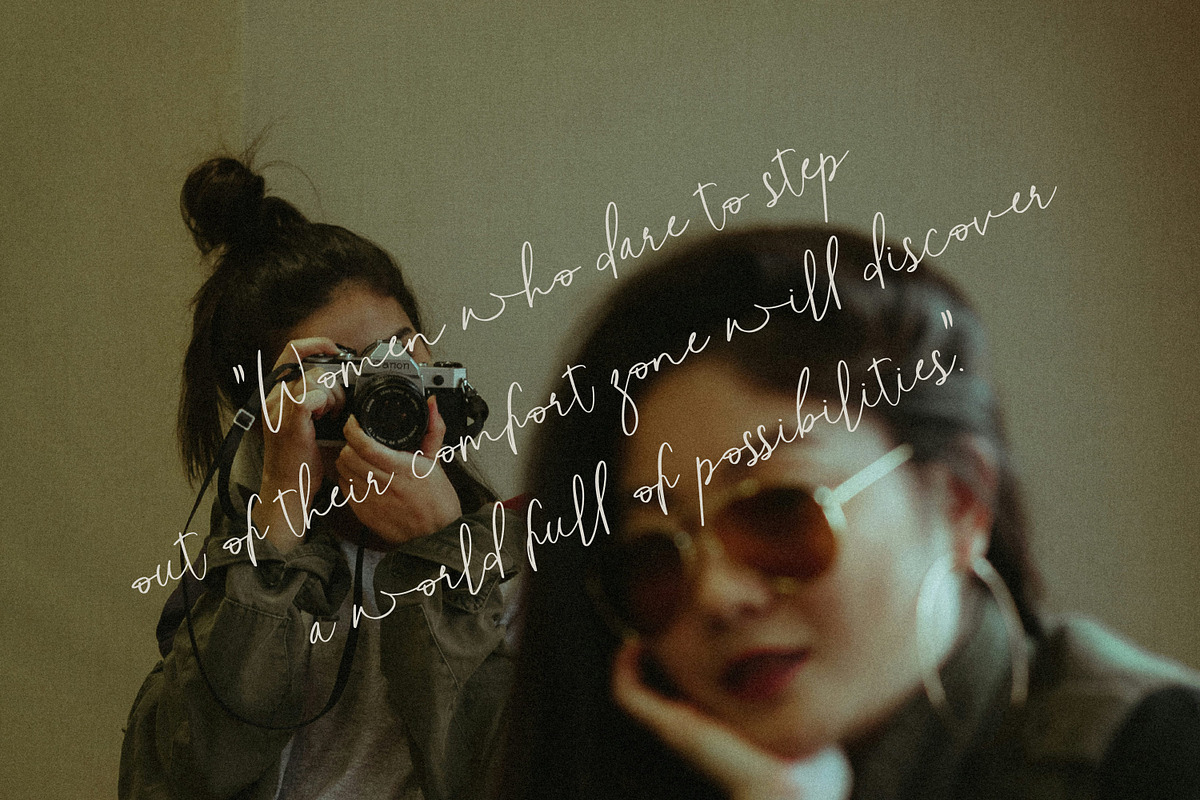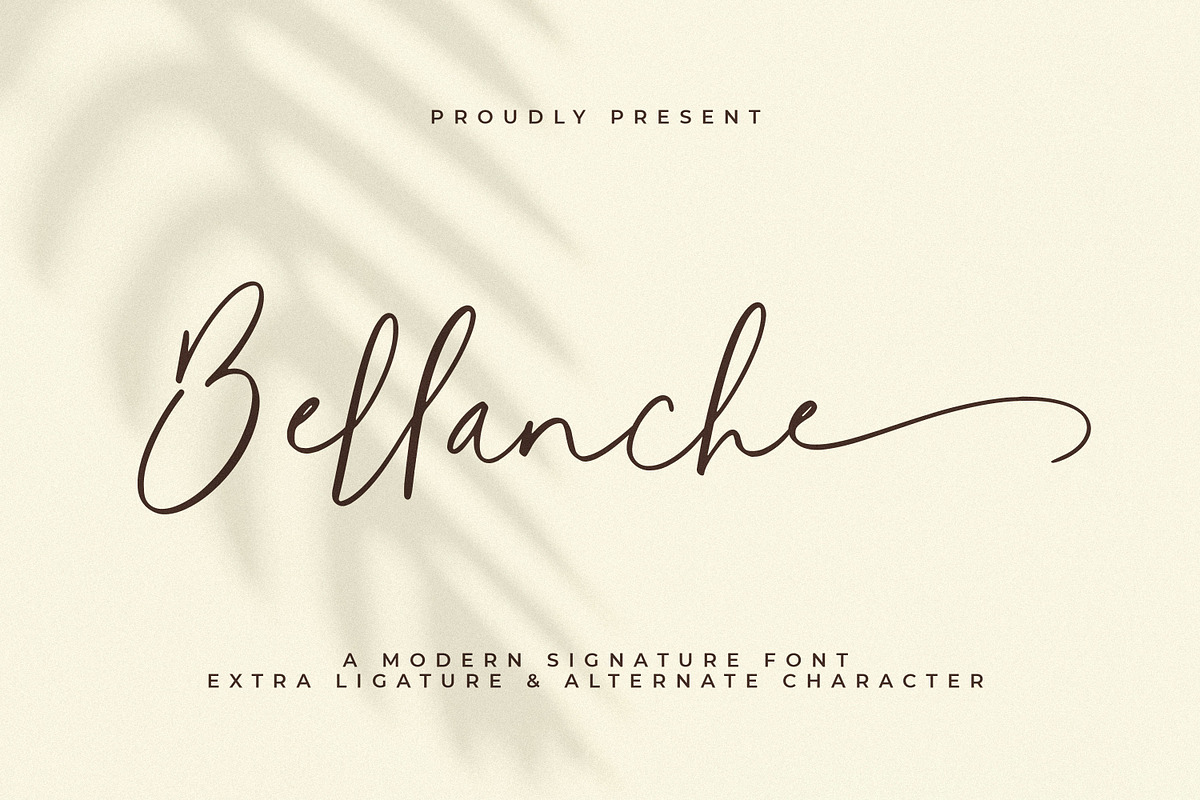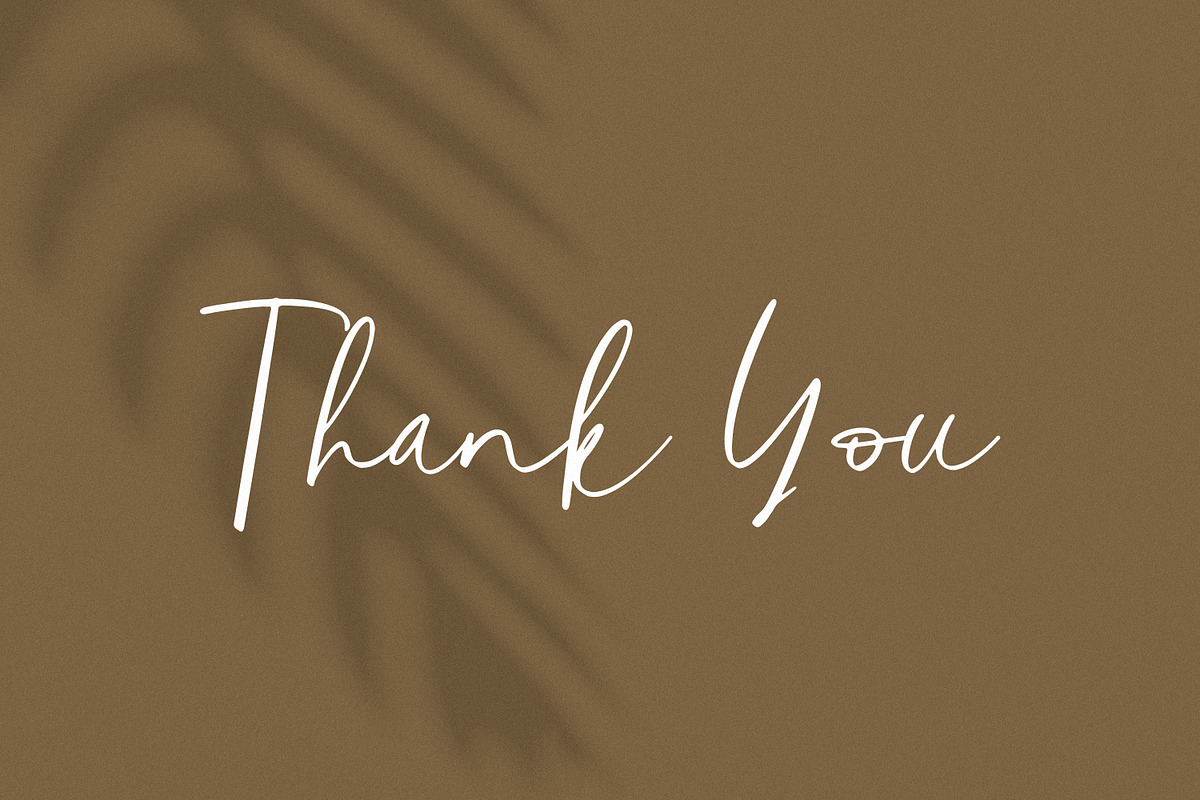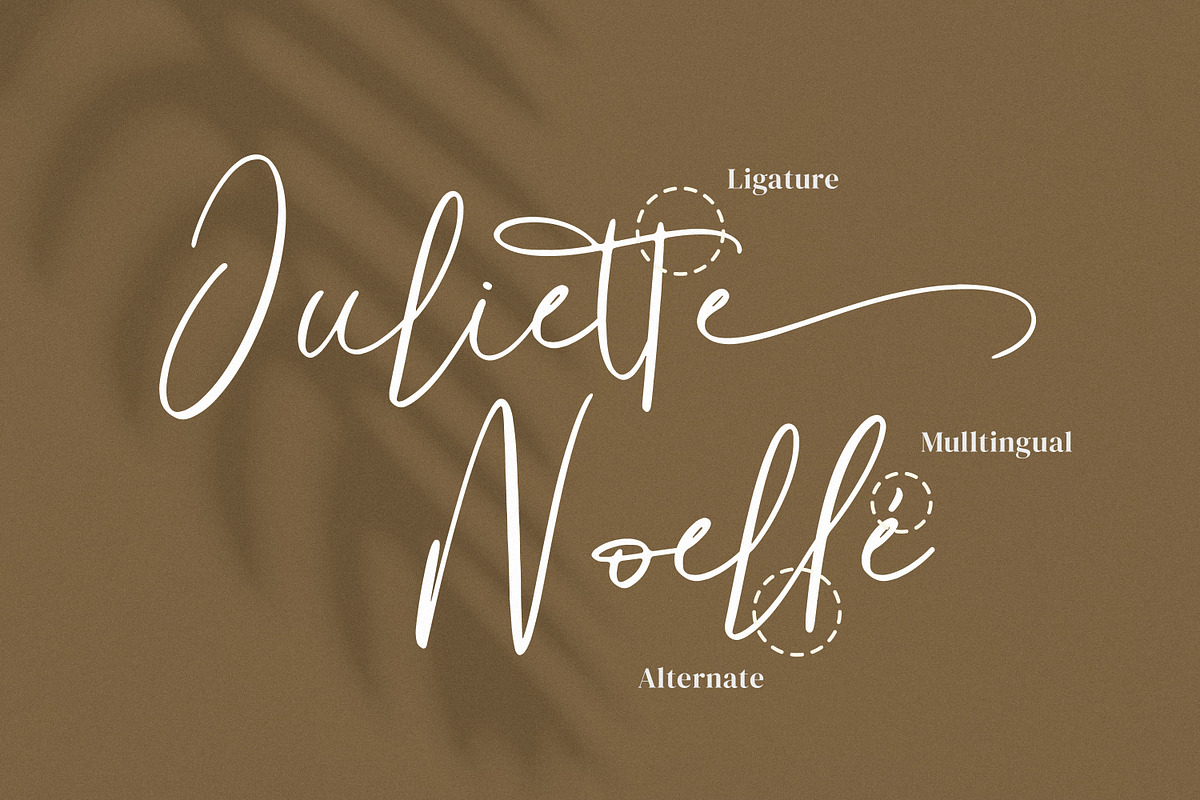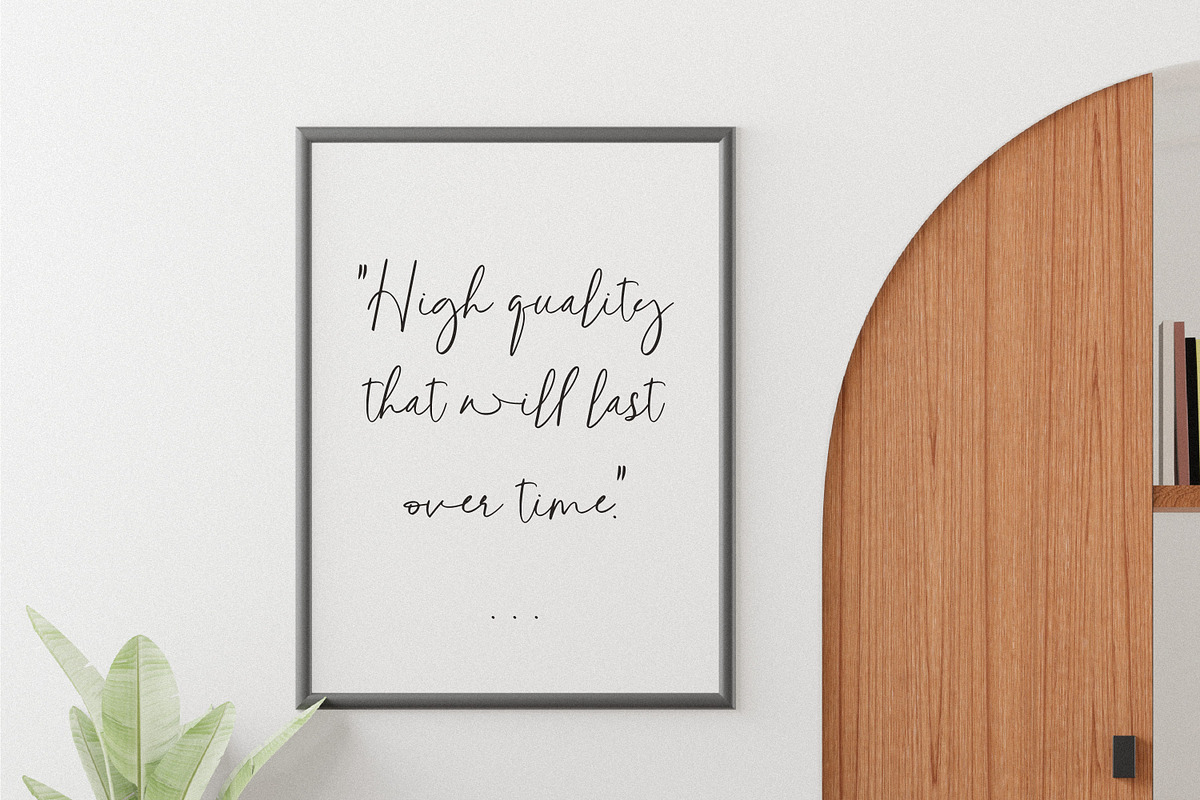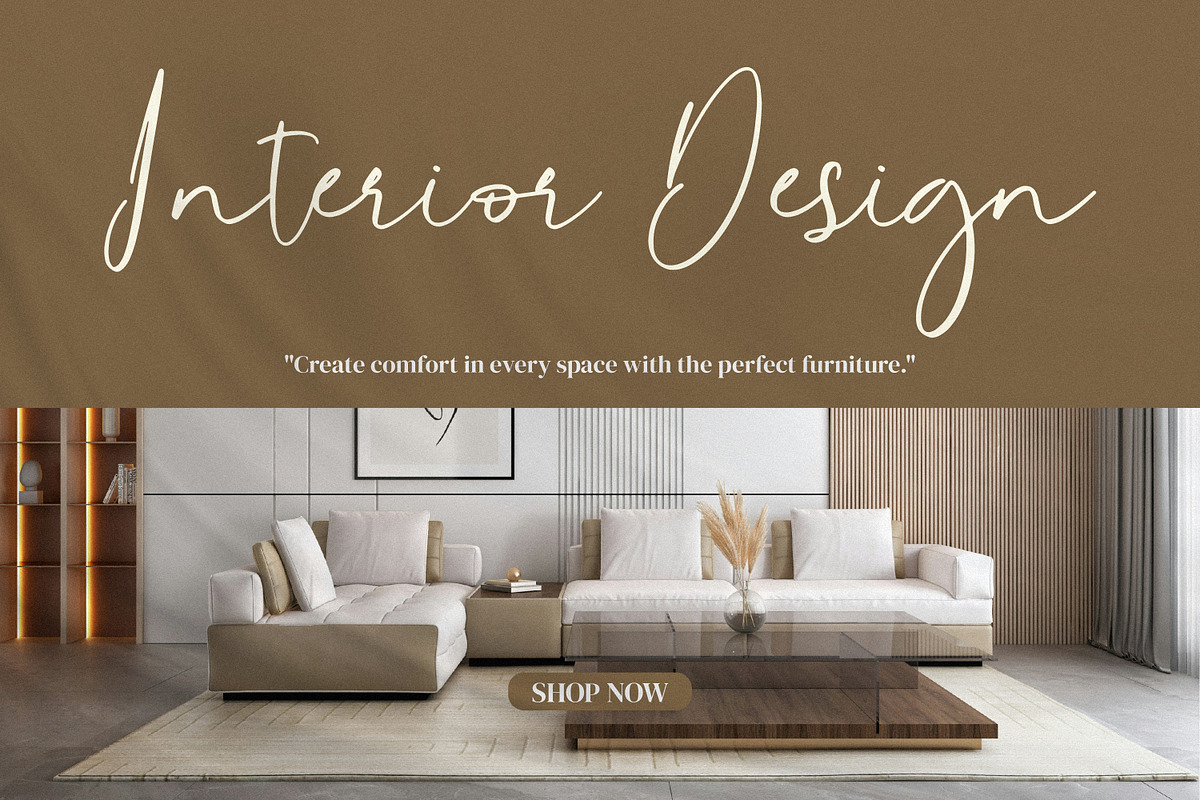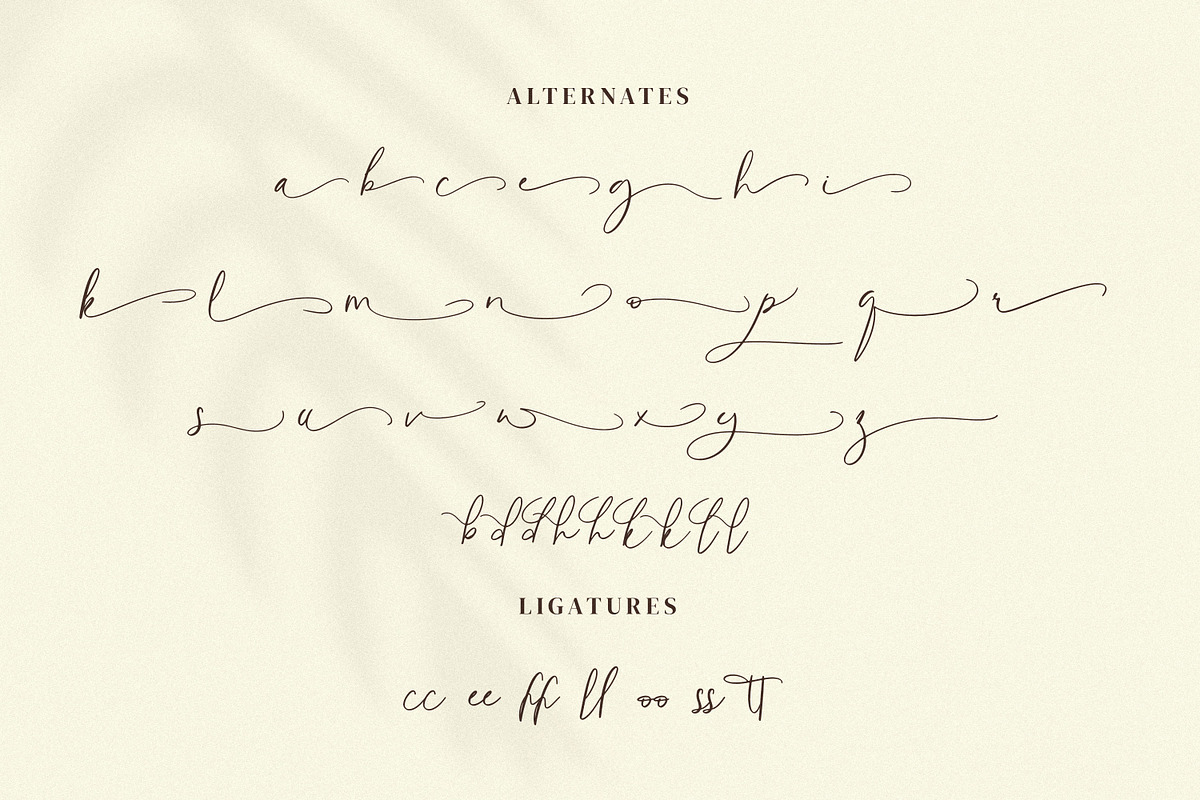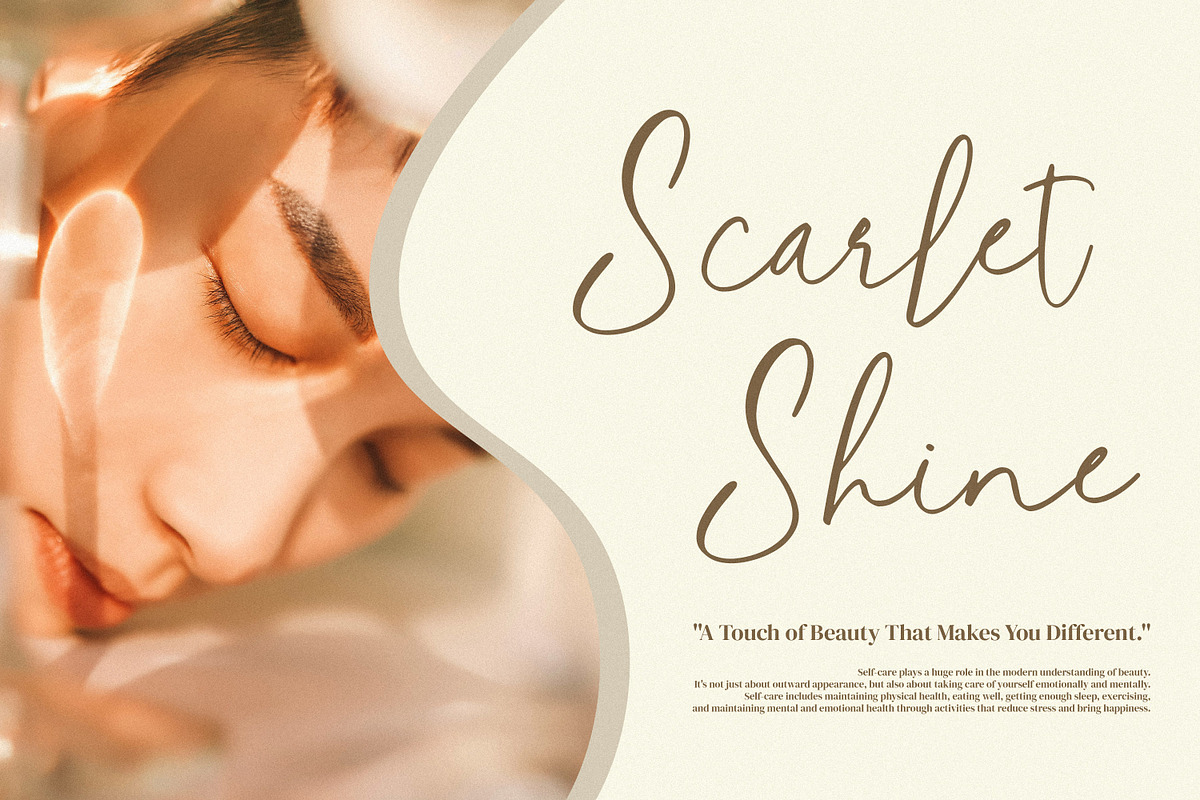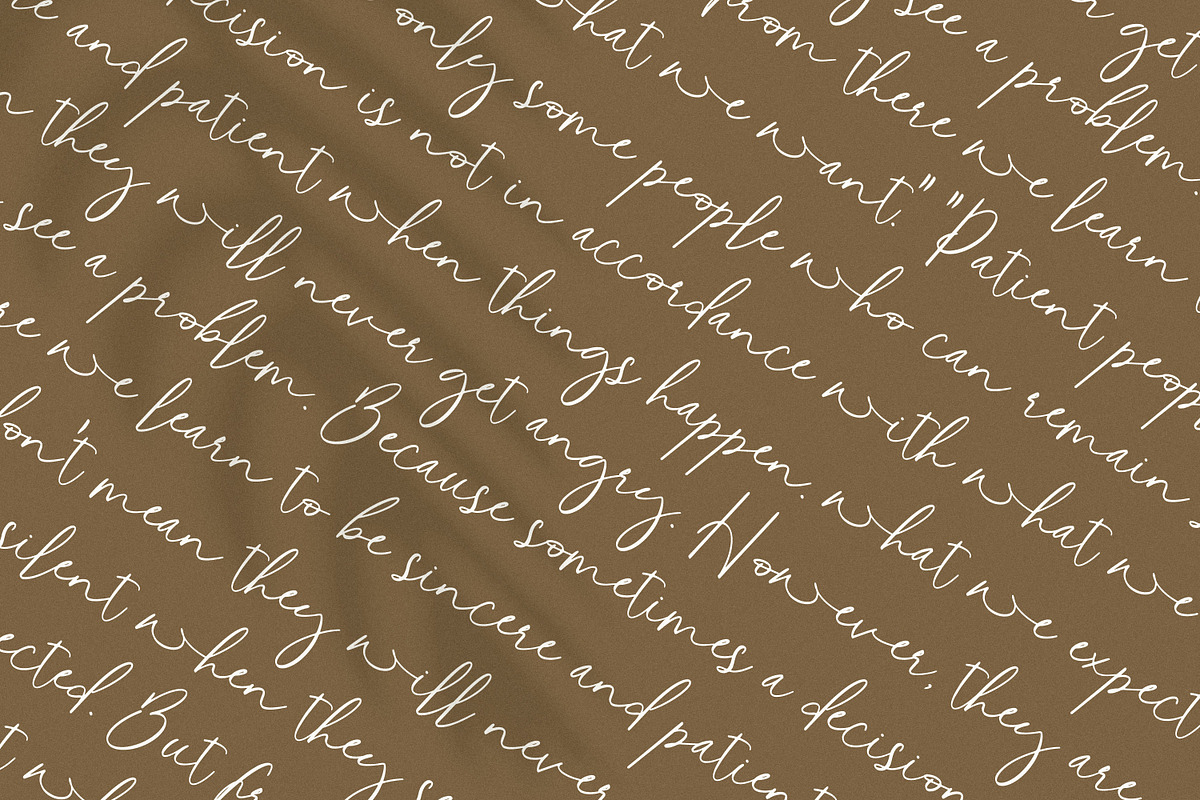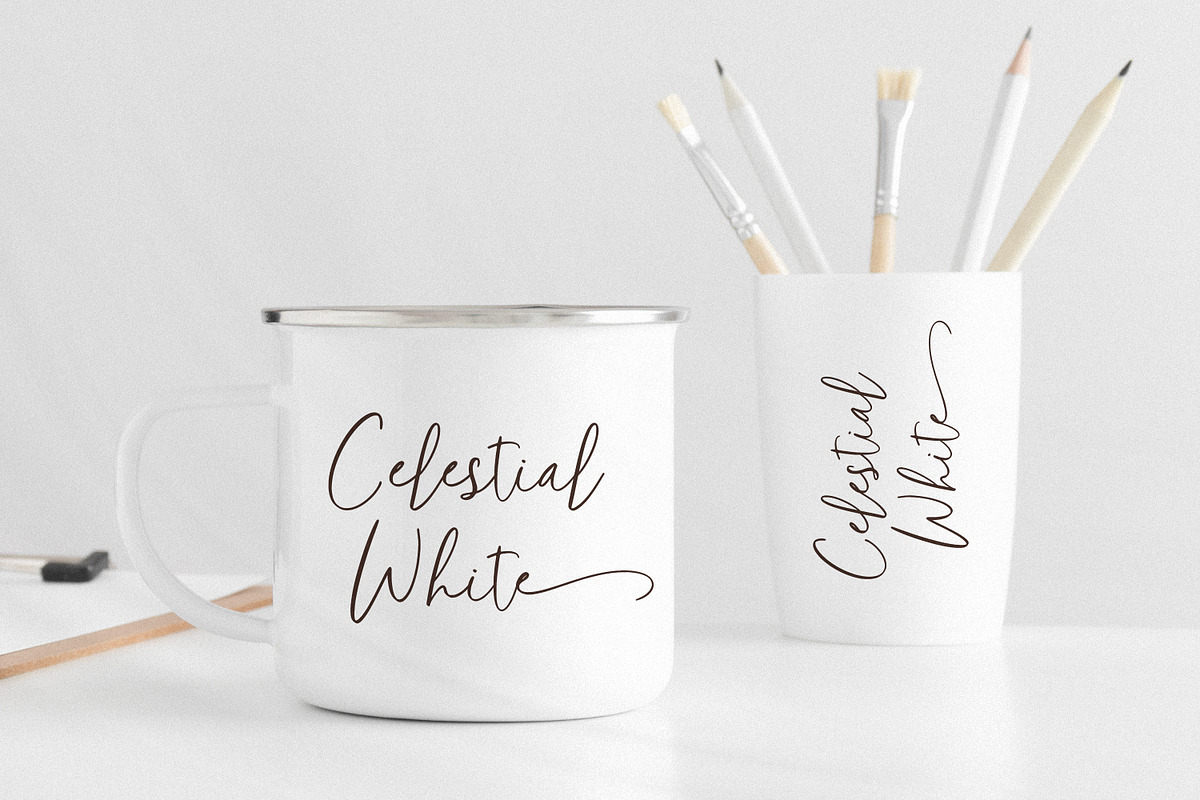
Bellanche
Bellanche - A Modern Signature Font, from Goresan Studio, suitable for any projects such as: logos, branding projects, homeware designs, product packaging, mugs, quotes, posters, shopping bags, t-shirts, book covers, name card, invitation cards, greeting cards, label, photography, watermark, special events, and all your other lovely projects that need a beautiful script taste.
- Alternate, Ligature and Swash